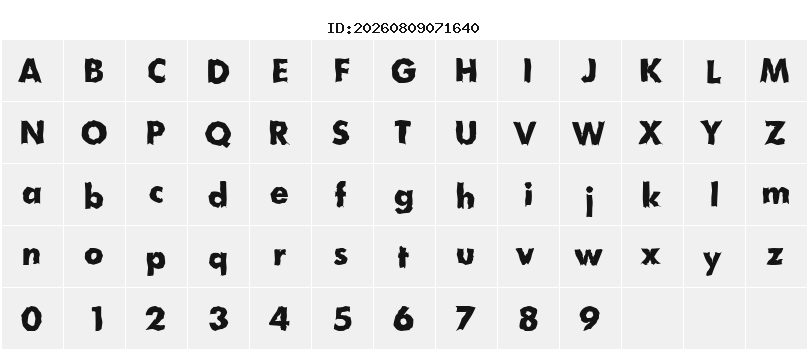
About PeterBeckerRandom-ExtraBold.ttf
PeterBeckerRandom-ExtraBold.ttf is a modern, elegant sans-serif font designed for ultimate readability and visual harmony. Perfect for branding, headlines, web design, and print materials.